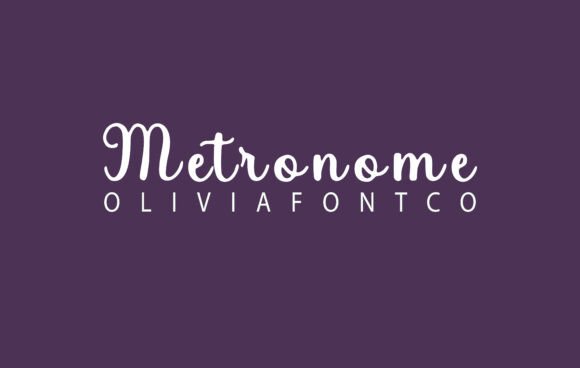
Metronome Font: Elevate Your Creative Projects with a Romantic Touch
The Metronome font is a beautiful, authentic handwritten font that adds a romantic touch to any creative project. Designed to be a true favorite among designers and artists, this font has the potential to take your ideas to new heights. In this article, we’ll explore the features and benefits of the Metronome font, and how it can be used to elevate your designs.
Key Features of Metronome Font
- Authentic Handwritten Style: The Metronome font boasts an authentic handwritten style that exudes warmth and personality.
- Romantic Touch: This font’s romantic touch makes it perfect for designs that require a touch of elegance and sophistication.
- Legibility: The Metronome font is highly legible, making it suitable for use as both title and body text.
- Versatility: This font can be used for a wide range of design projects, including magazine headlines, social media graphics, branding, wedding invitations, and more.
Design Applications for Metronome Font
The Metronome font is an incredibly versatile font that can be used for various design applications. Here are some ideas to get you started:
- Magazine Headlines: Use the Metronome font to create eye-catching headlines for your magazine or publication.
- Social Media Graphics: Add a touch of elegance to your social media graphics with the Metronome font.
- Branding: Use this font to create a unique and memorable brand identity for your business or organization.
- Wedding Invitations: The Metronome font’s romantic touch makes it perfect for wedding invitations, save-the-date cards, and other wedding-related designs.
- Cards and Stationery: Use this font to create beautiful cards, stationery, and other paper goods.
Typography Tips for Using Metronome Font
To get the most out of the Metronome font, here are some typography tips to keep in mind:
- Pair with Contrasting Fonts: Pair the Metronome font with contrasting fonts to create visual interest and hierarchy.
- Experiment with Font Sizes: Experiment with different font sizes to create emphasis and add visual hierarchy to your designs.
- Use Color Effectively: Use color effectively to enhance the beauty of the Metronome font and add an extra layer of meaning to your designs.
Benefits of Using Metronome Font
The Metronome font offers a range of benefits that make it an excellent choice for designers and artists. Here are some of the advantages of using this font:
- Unique and Memorable: The Metronome font is unique and memorable, making it perfect for designs that require a touch of personality.
- Highly Legible: This font is highly legible, making it suitable for use in a wide range of design applications.
- Versatile: The Metronome font is incredibly versatile, making it perfect for use in various design projects.
- Elegant and Sophisticated: This font’s elegant and sophisticated style makes it perfect for designs that require a touch of luxury and refinement.
In conclusion, the Metronome font is a beautiful, authentic handwritten font that adds a romantic touch to any creative project. With its unique and memorable style, high legibility, and versatility, this font is perfect for designers and artists who want to elevate their designs. Whether you’re working on a magazine headline, social media graphic, or wedding invitation, the Metronome font is an excellent choice.